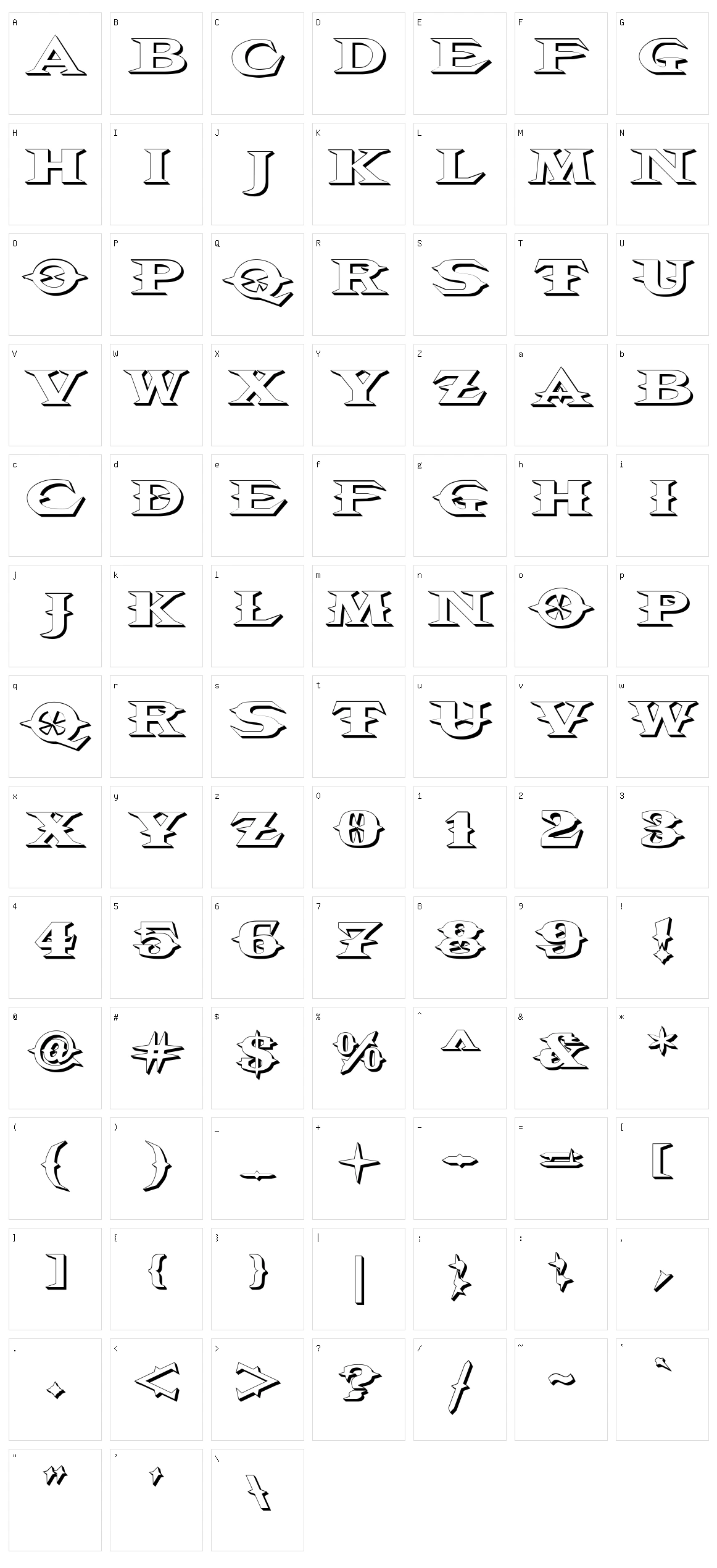
VTC Belias Blade
Description: The free font VTC Belias Blade is carefully designed by Vigilante Typeface Corporation, showcasing a thoughtful balance of creativity and usability and belongs to the Gothic font family. When you download the ZIP file, it contains only 99.38 KB of font files, making it lightweight and quick to download. Please review the license details below to understand permitted usage and distribution rights. If license information is not available, we recommend using this font for personal projects only or contacting the author directly for commercial usage permissions.